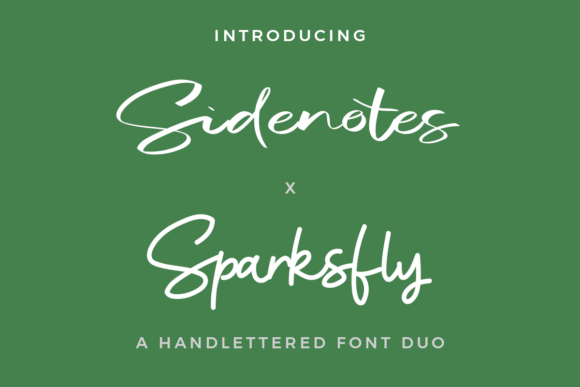
Sidenotes X Sparksfly Duo Font
About the Sidenotes X Sparksfly Duo Font
Presenting Sidenotes X Sparksfly Duo Font, a unique and stylish typeface that will make your work stand out. Introducing Sidenotes and Sparksfly – a pair of enchanting, cursive, handwritten fonts. This fabulous duo brings the charm of intimate, personal scripts to life. From delicate, whispered correspondence to bold, passionate letters, Sidenotes and Sparksfly capture the full spectrum of handwritten expression. Perfect for invitations, branding, and personal projects, these fonts are a symphony of curves and flourishes, exuding elegance on every line. Dive into the world of romantic ink strokes and graceful letterforms with Sidenotes and Sparksfly. Handcrafted with love, this font duo truly cherishes the beauty of handwriting, making it a fine addition to any designer’s typography arsenal.
Sidenotes X Sparksfly Duo Font Usage Examples
Sidenotes X Sparksfly Duo Font Example